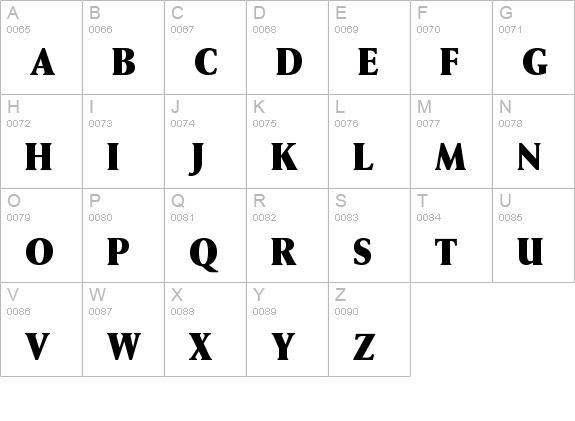
WeissAntiquaEF-ExBoldCond is a stunning font that exudes elegance and sophistication. With its bold and condensed design, it commands attention and makes a powerful statement. Perfect for headlines, titles, and logos, this font adds a touch of luxury to any design project. Featuring intricate details and exquisite curves, WeissAntiquaEF-ExBoldCond captures the essence of traditional antiqua typefaces while adding a modern twist. Its strong presence on the page makes it ideal for creating eye-catching and memorable designs. One of the best things about WeissAntiquaEF-ExBoldCond is that it is available for free download at FontsMarket.com. This means that anyone can access and utilize this remarkable font without any financial constraints. Whether you are a professional designer or a hobbyist, this font is a valuable addition to your toolkit. The versatility of WeissAntiquaEF-ExBoldCond is another reason to love it. It is equally suitable for print and digital media, ensuring that your designs will shine across various platforms. From magazine covers to website headers, this font effortlessly adapts to different contexts and delivers a visually captivating experience. In summary, WeissAntiquaEF-ExBoldCond is a must-have font for those who seek to elevate their designs with a touch of sophistication. Its bold and condensed style, combined with its intricate details, make it a standout choice for creating impactful visuals. Best of all, it is freely available for download at FontsMarket.com, so you can unleash your creativity without any limitations.